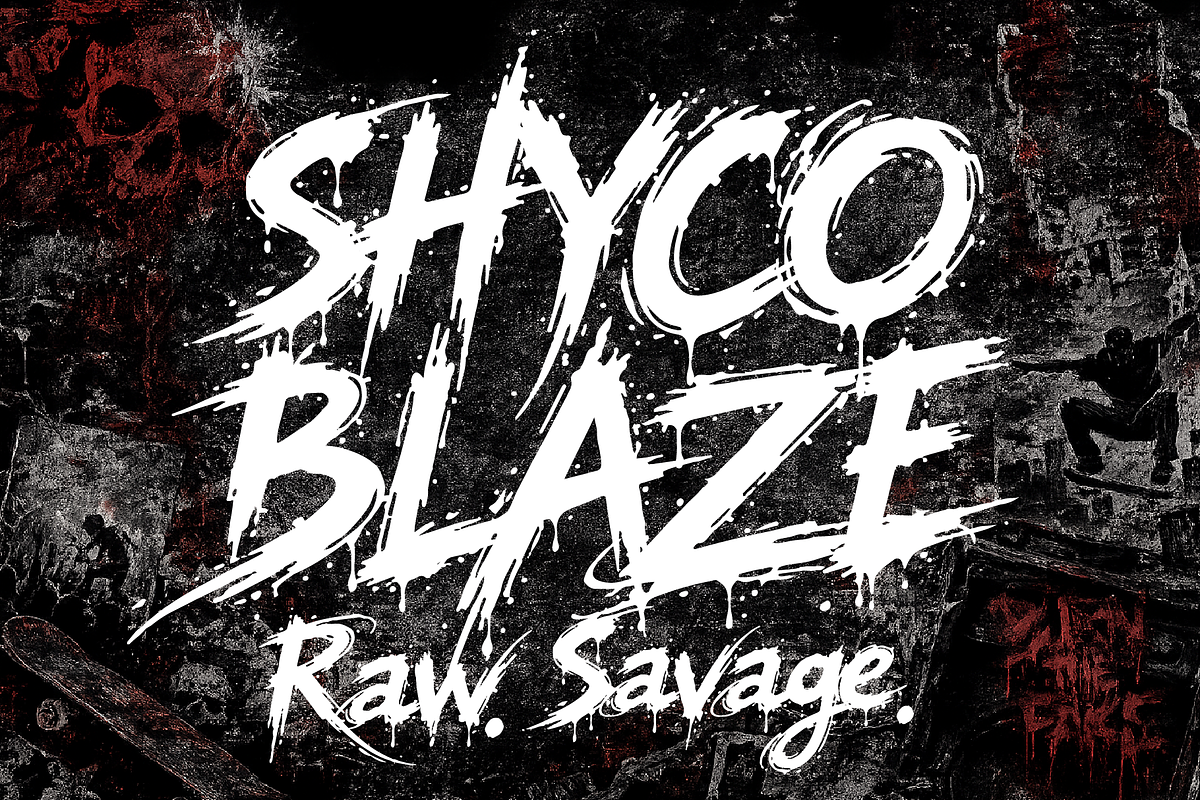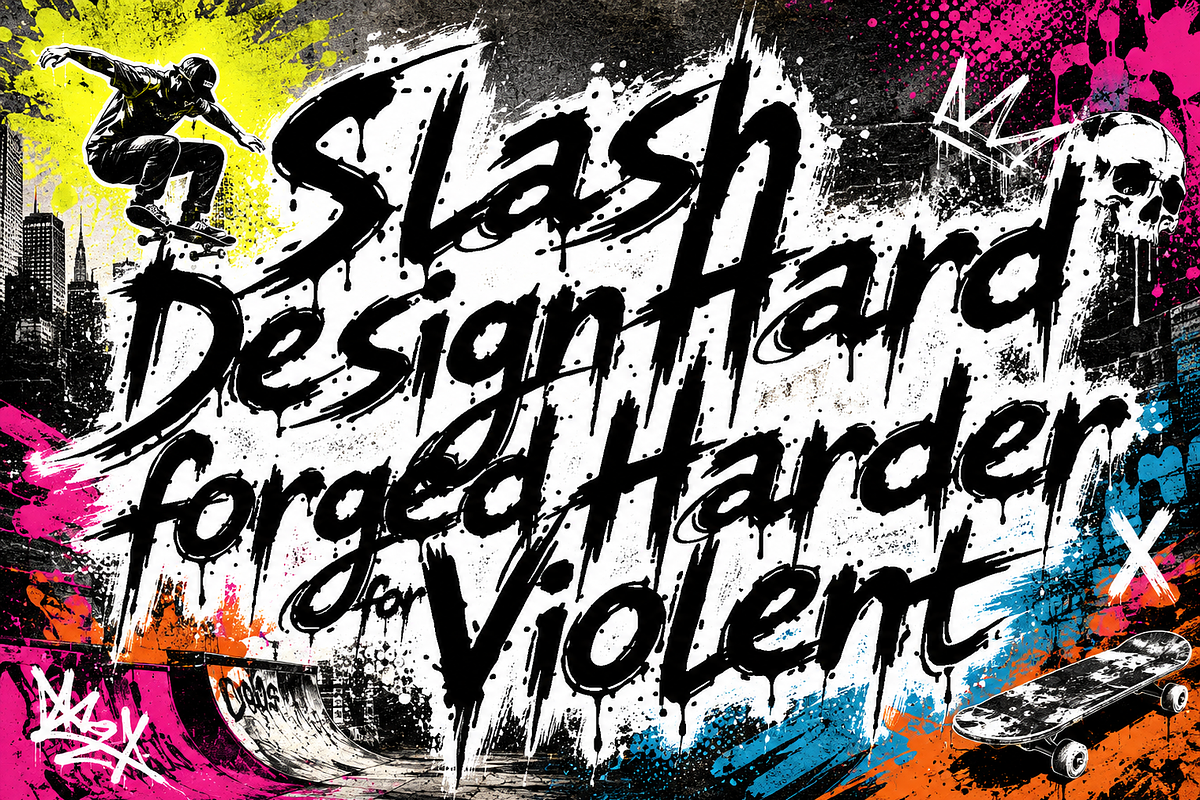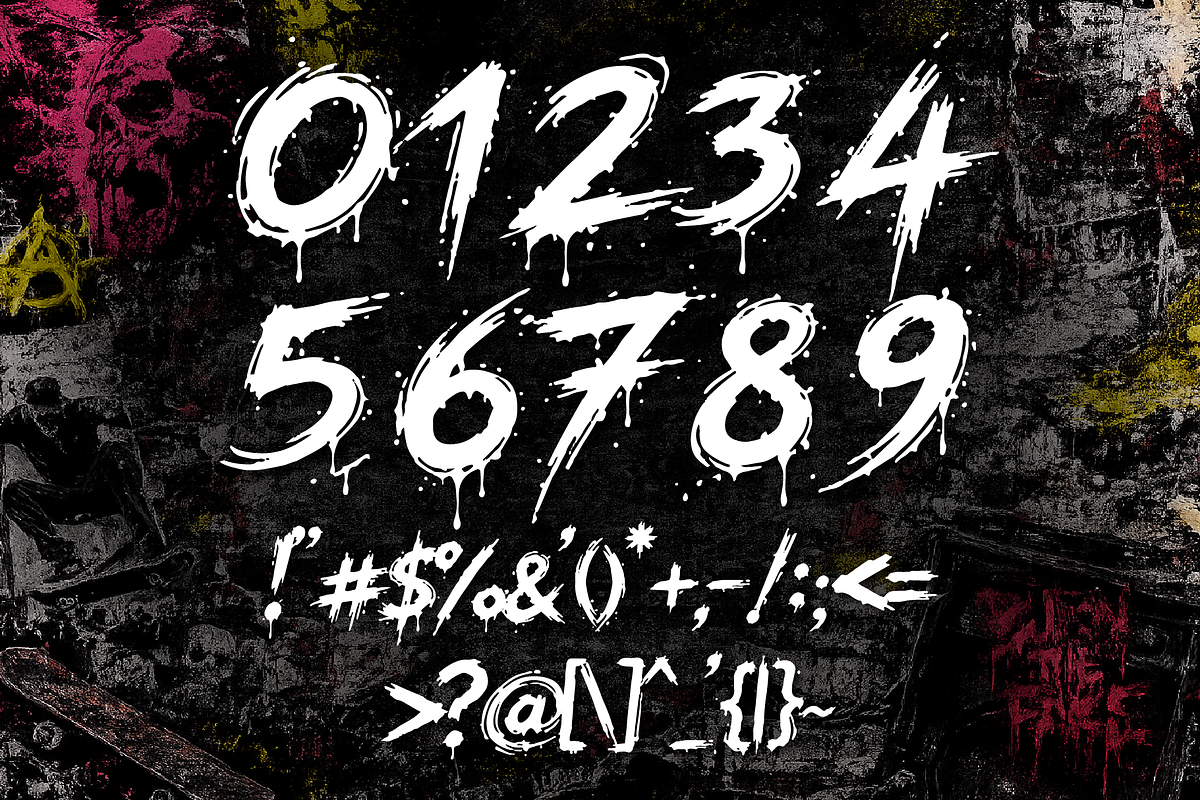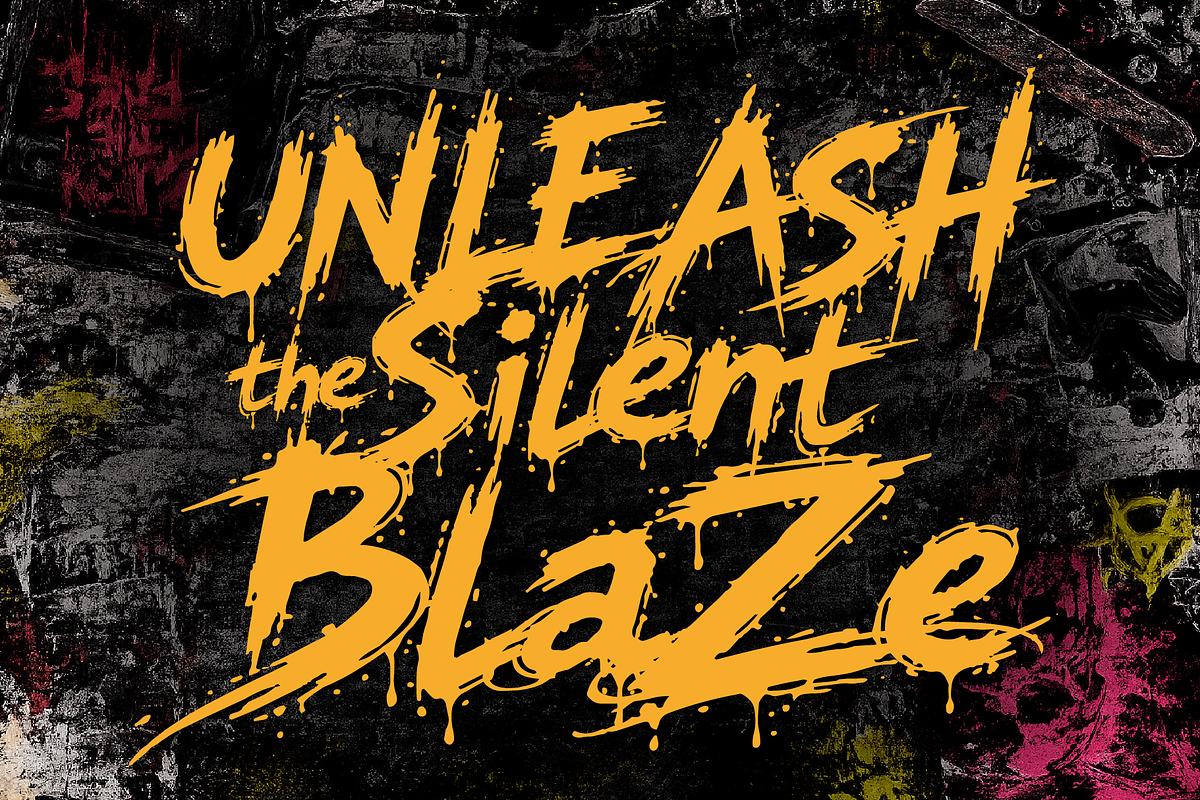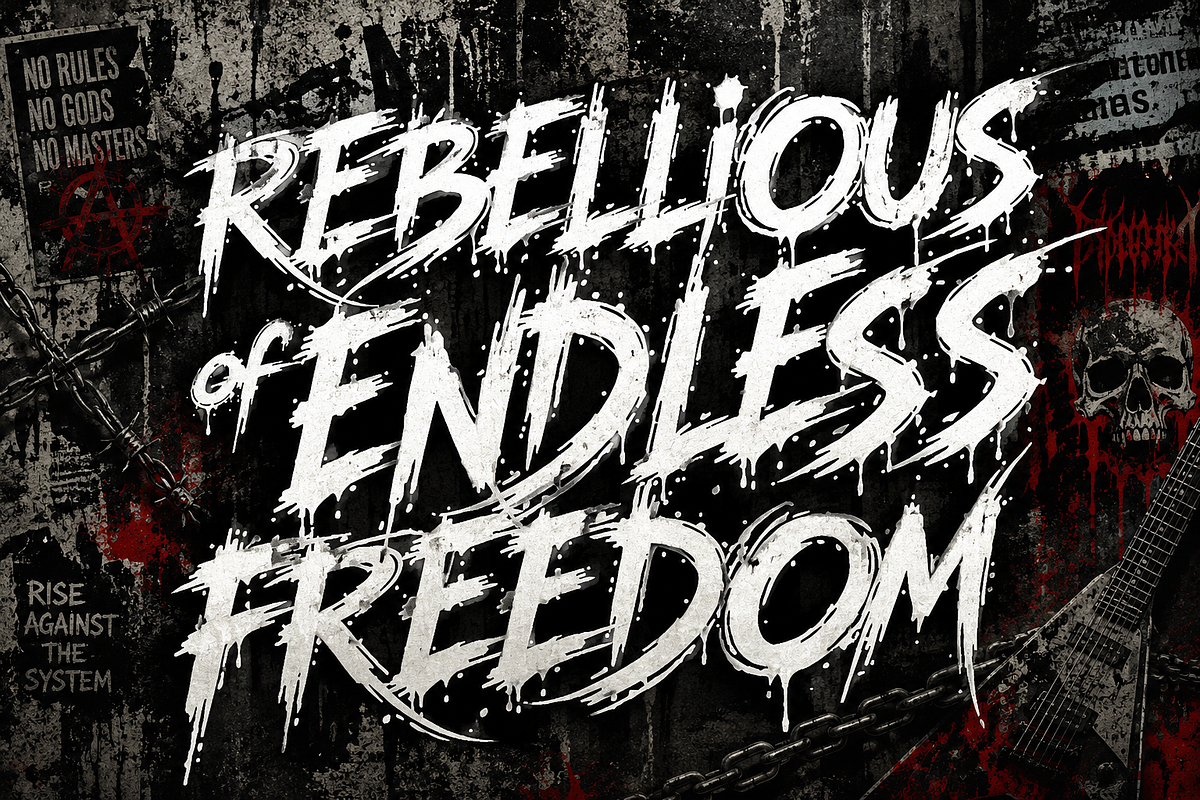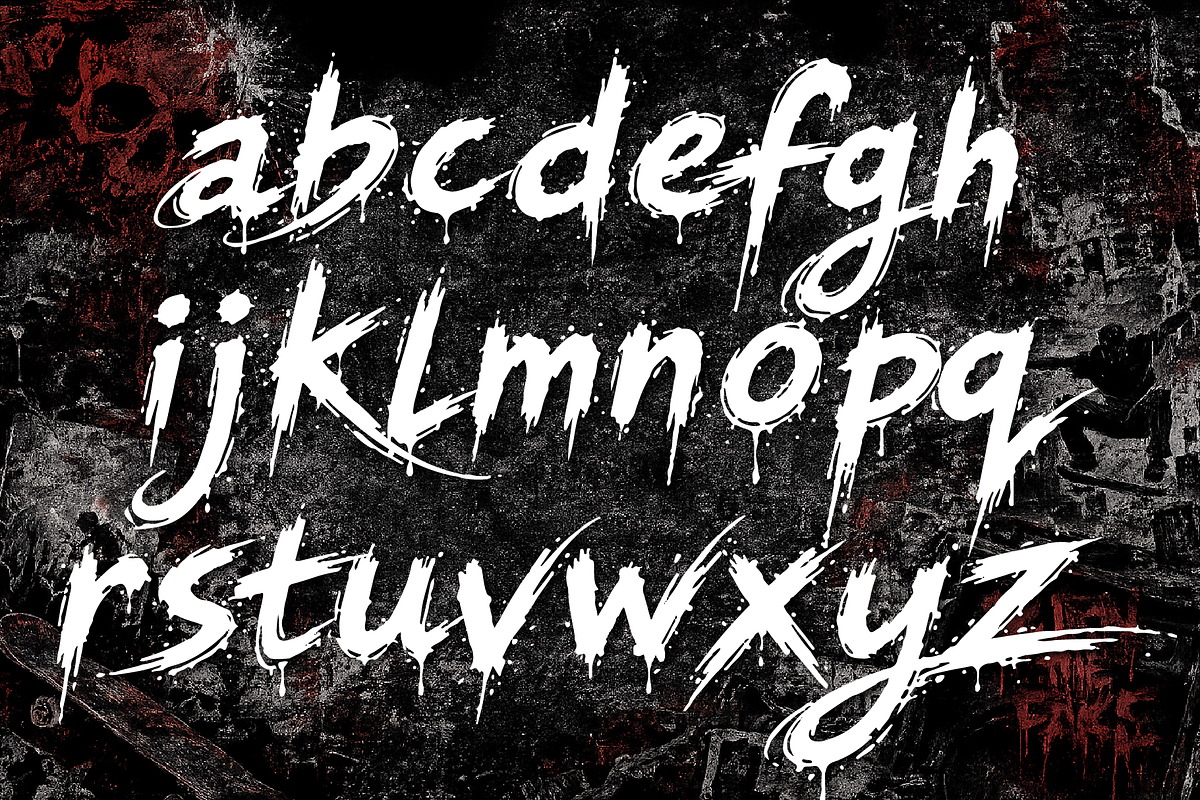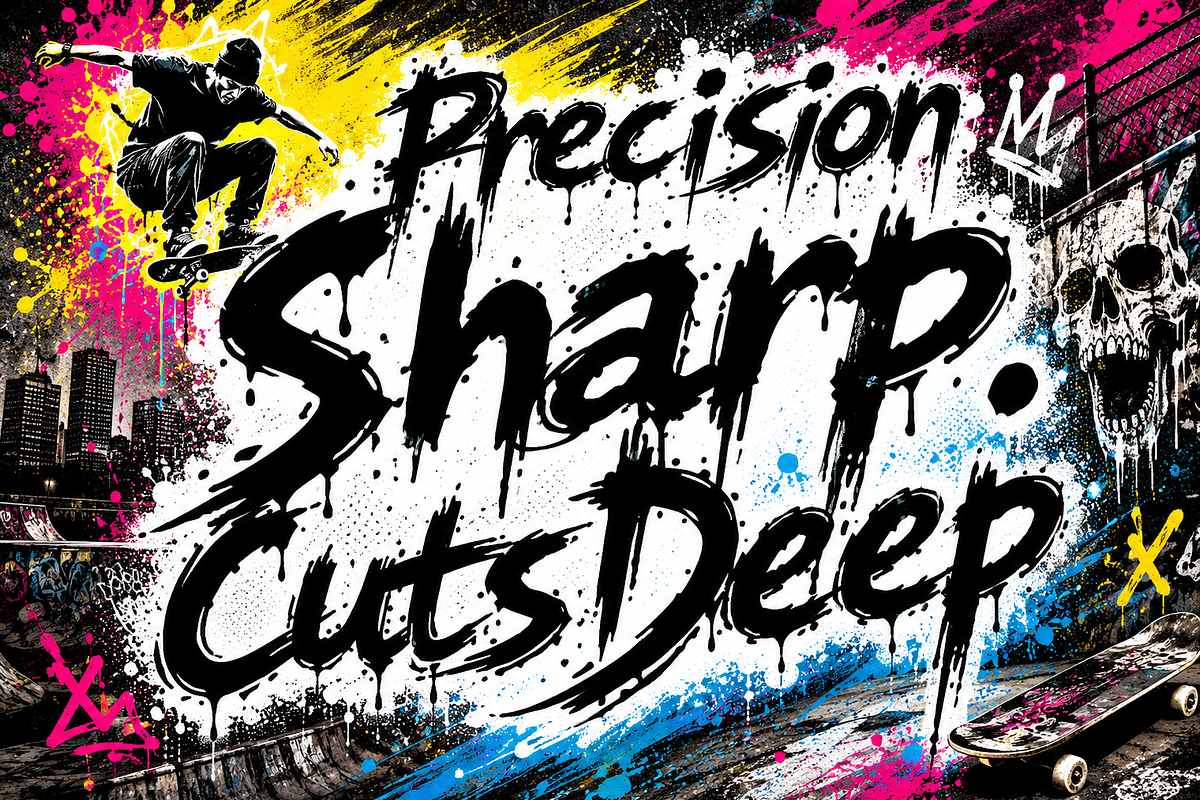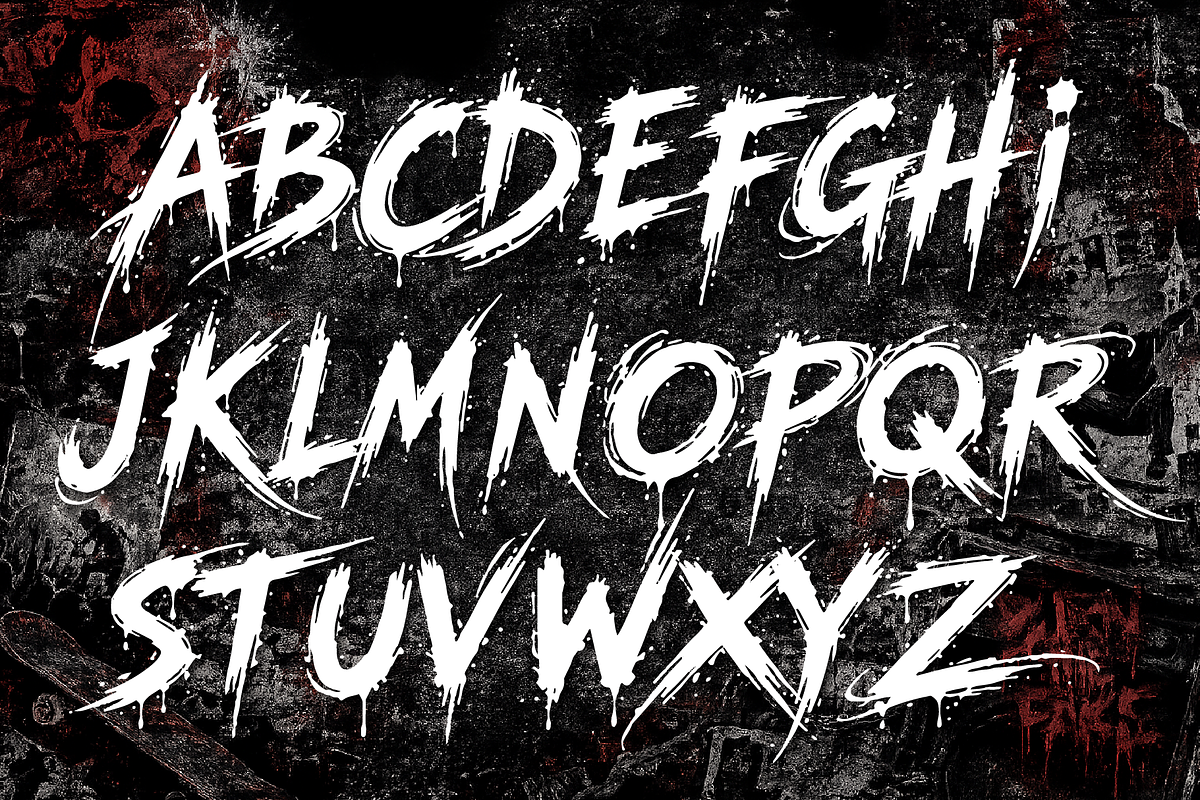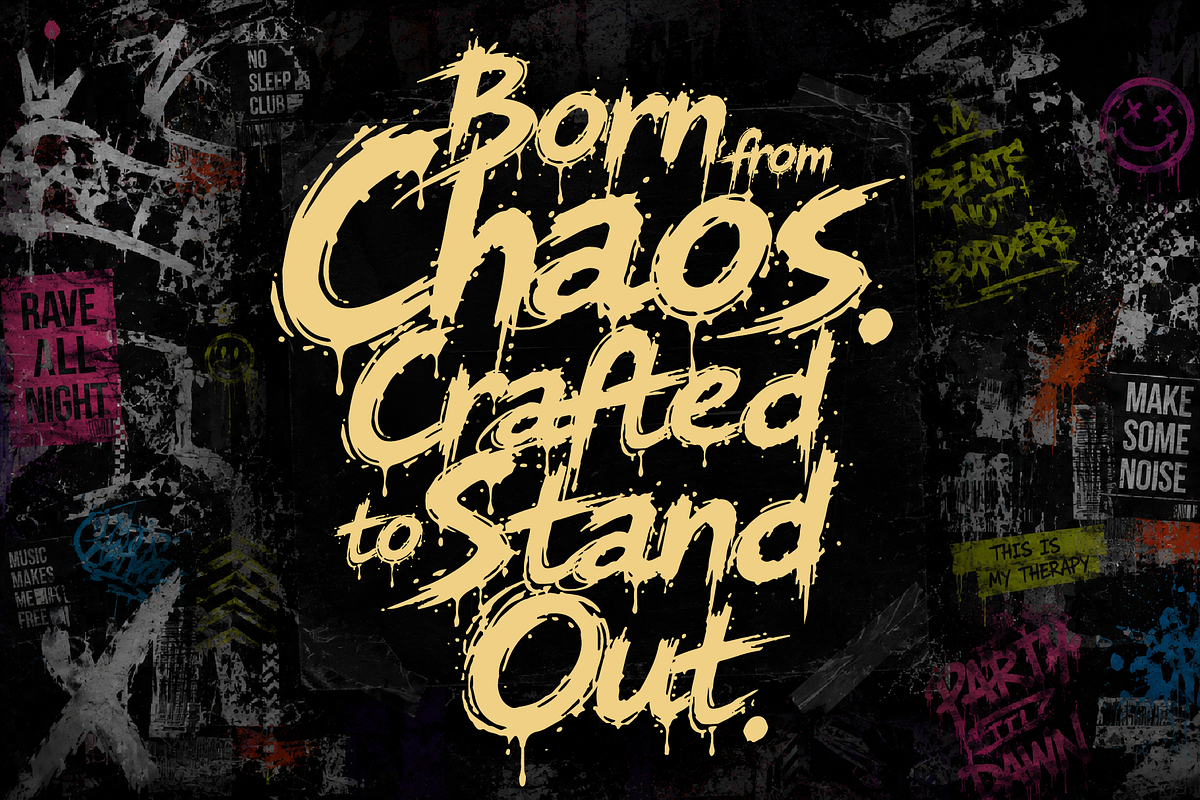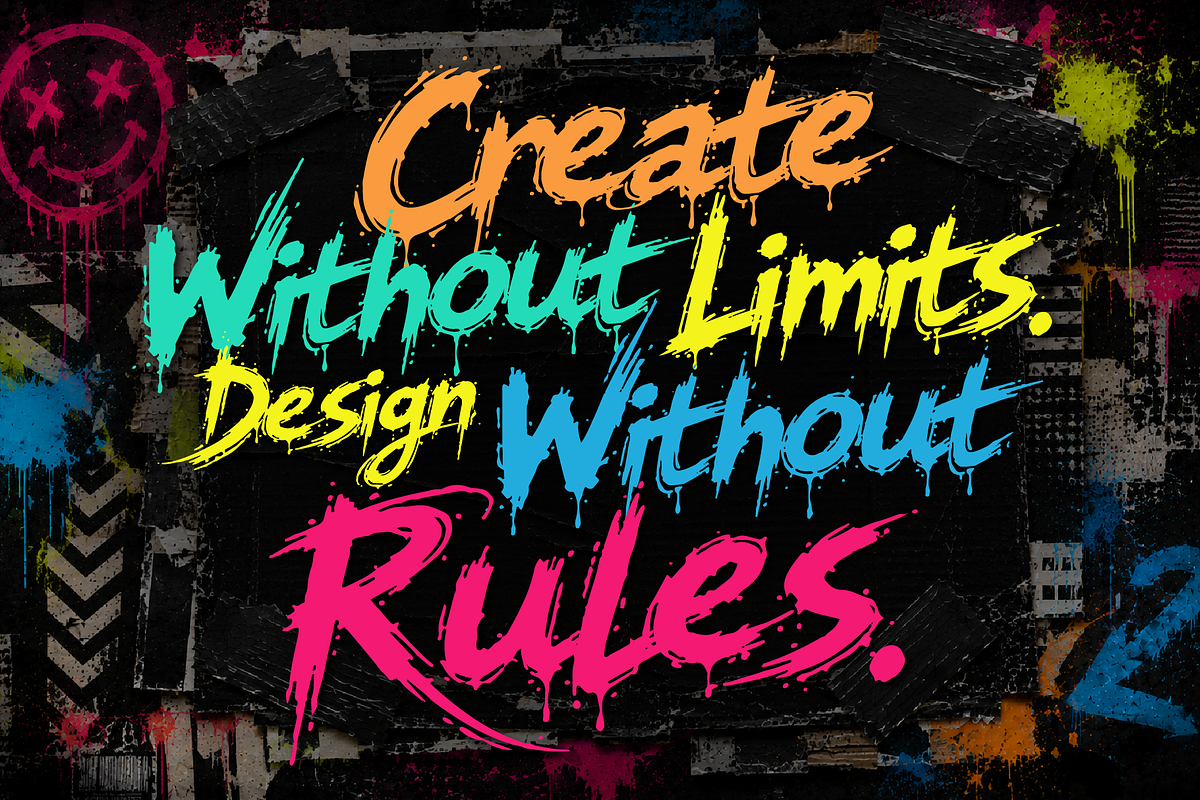
ShycoBlaze – Metal Skate Rock & Punk
ShycoBlaze is a bold grunge display font forged from the energy of underground skate culture, heavy metal, punk rock, and raw urban streets. Featuring distressed brush textures, rugged edges, and an aggressive handcrafted style, it delivers a fearless attitude that instantly grabs attention.